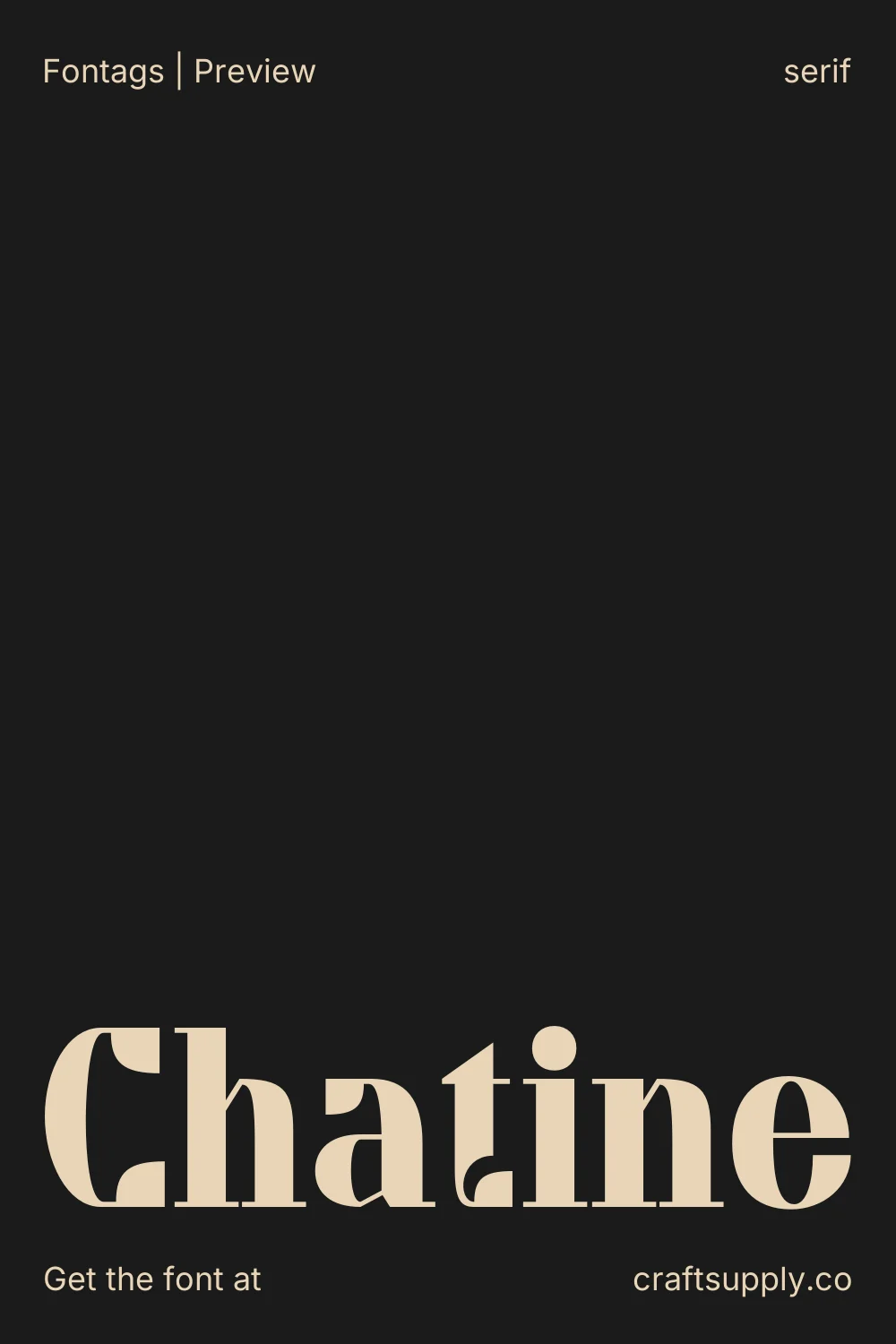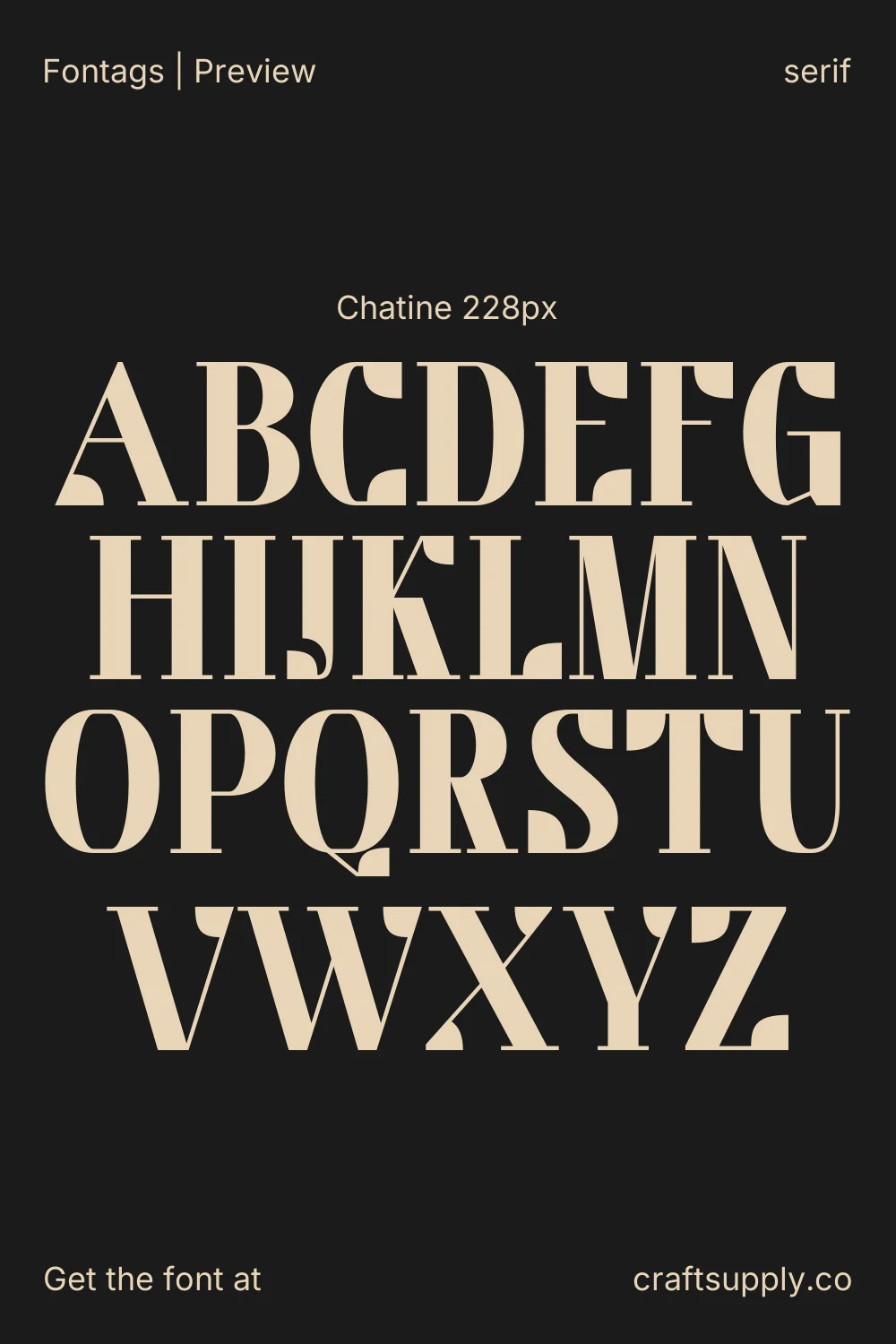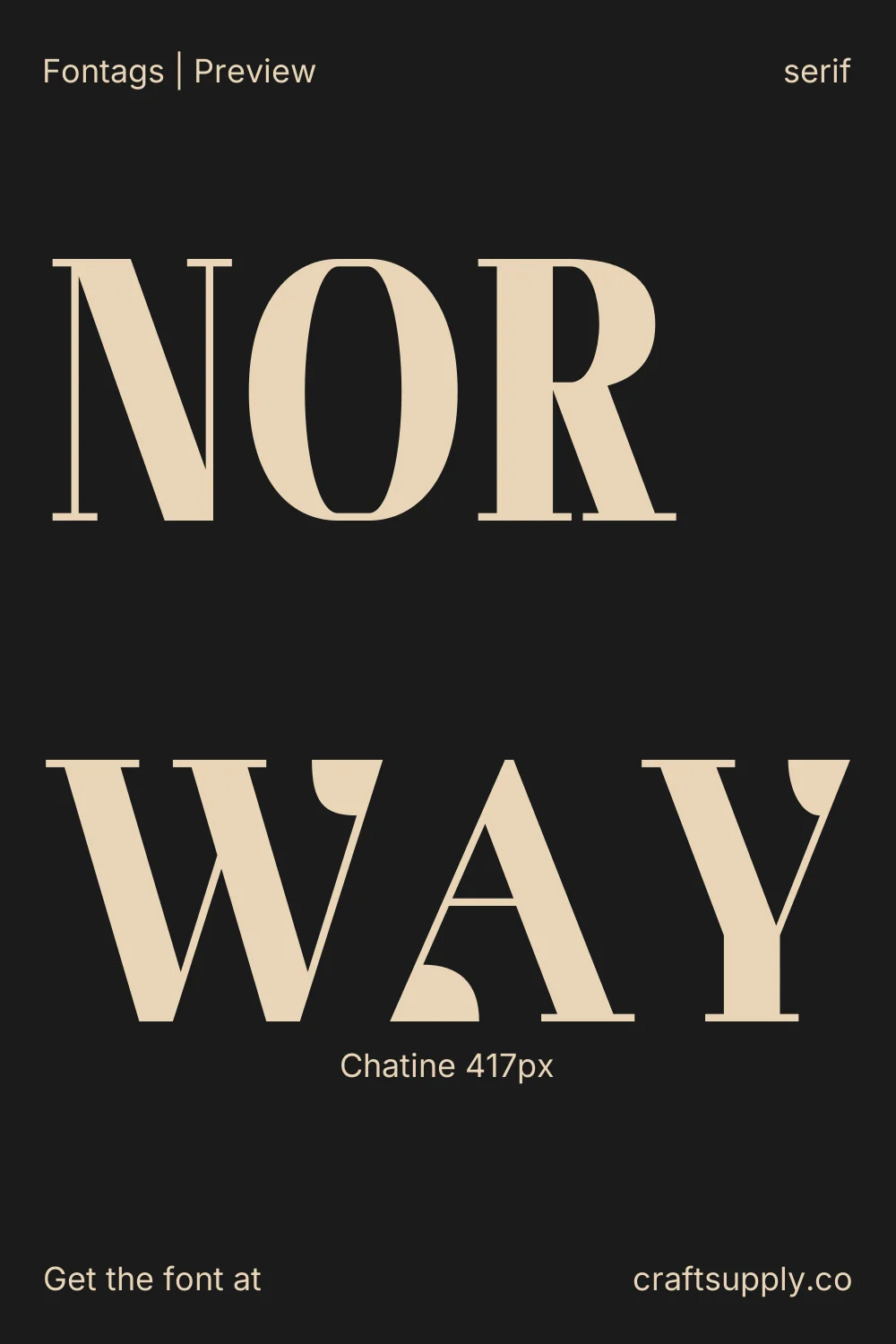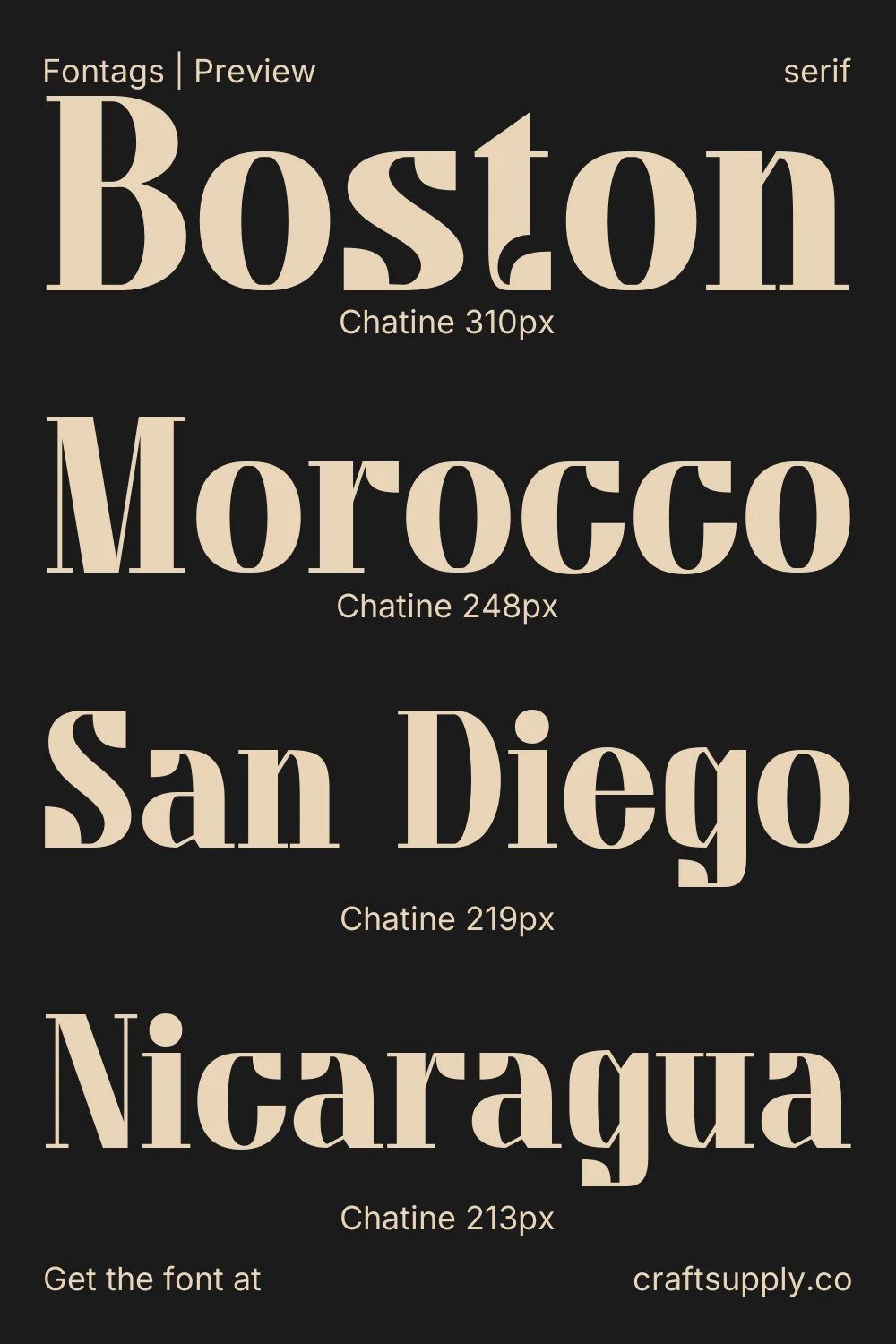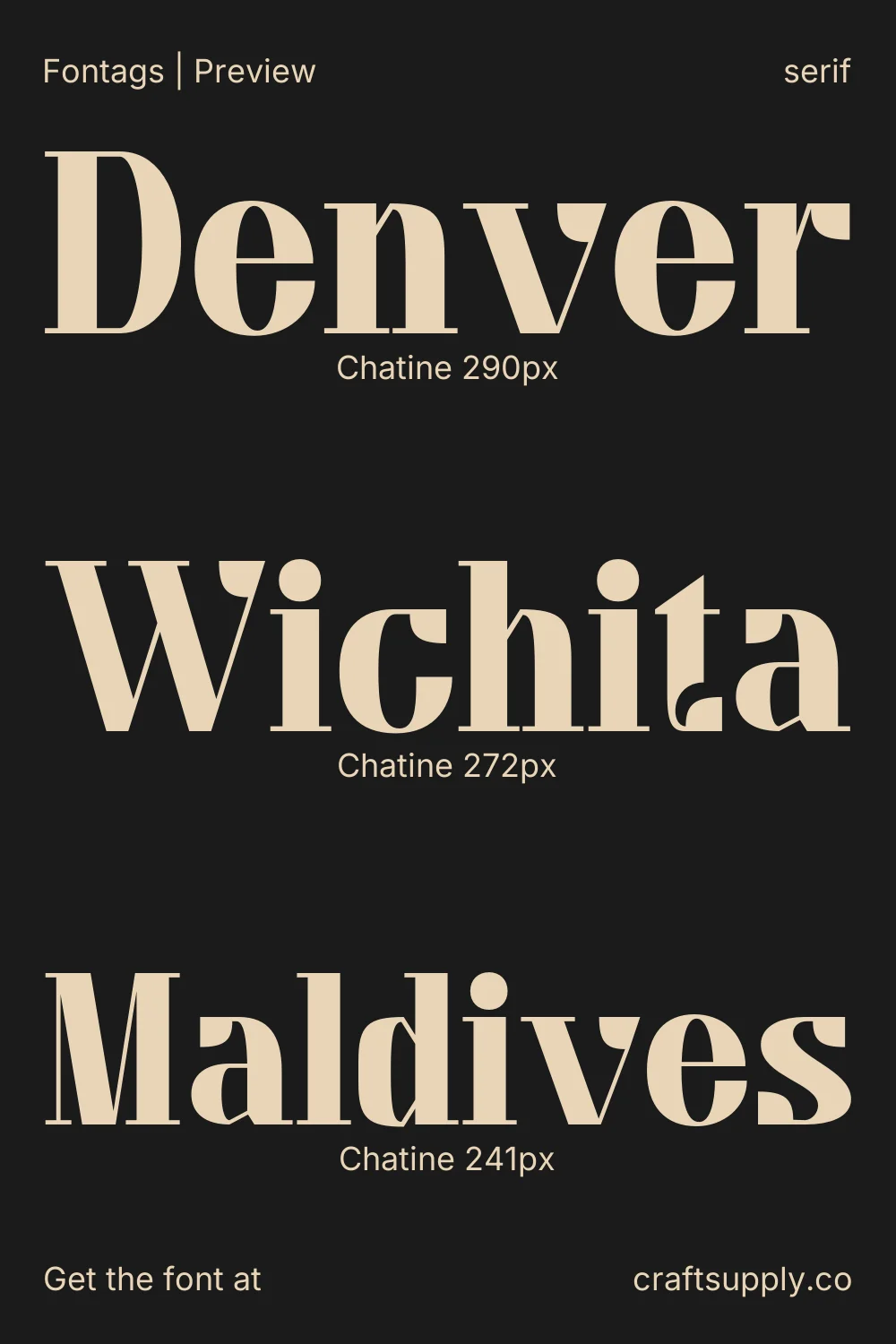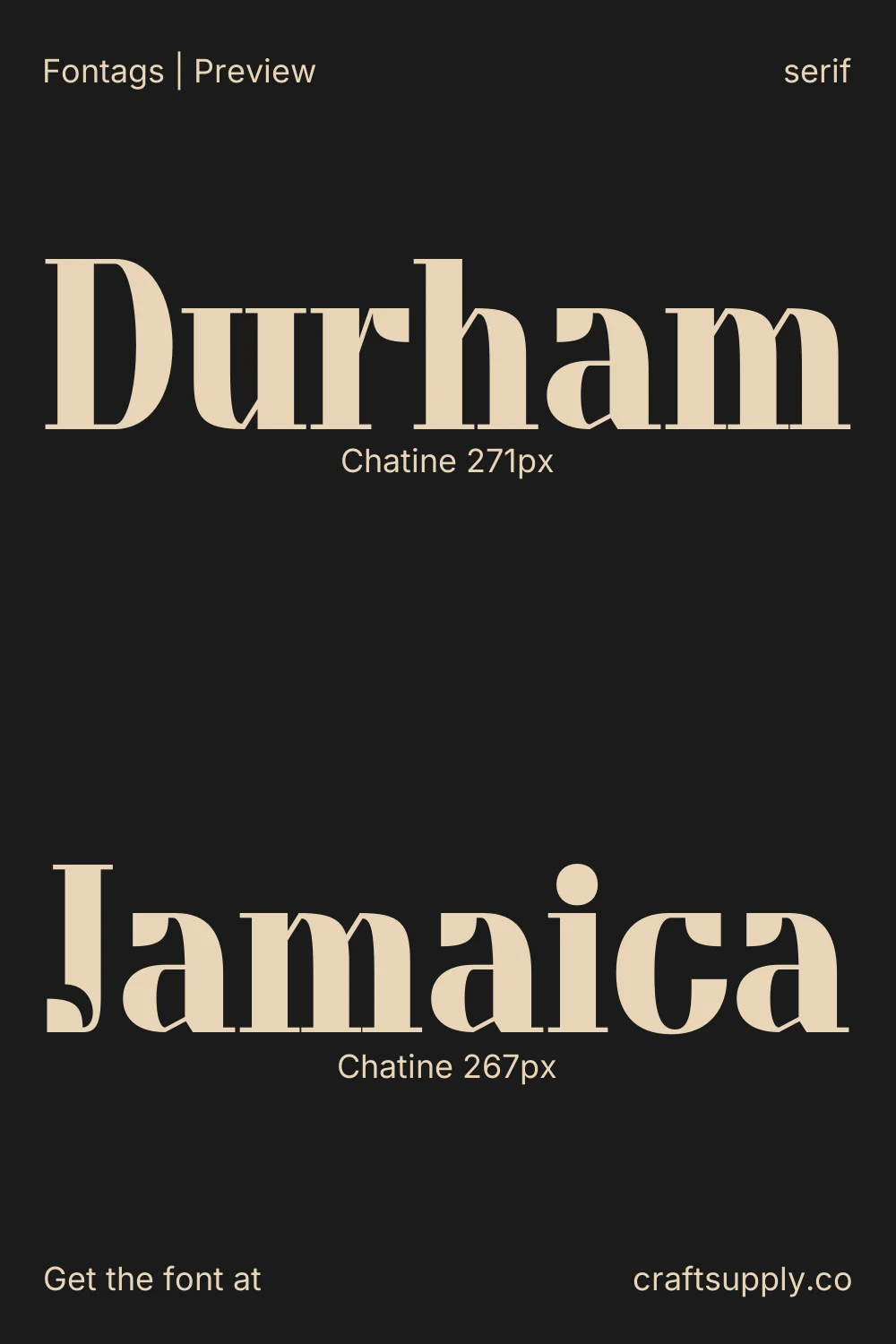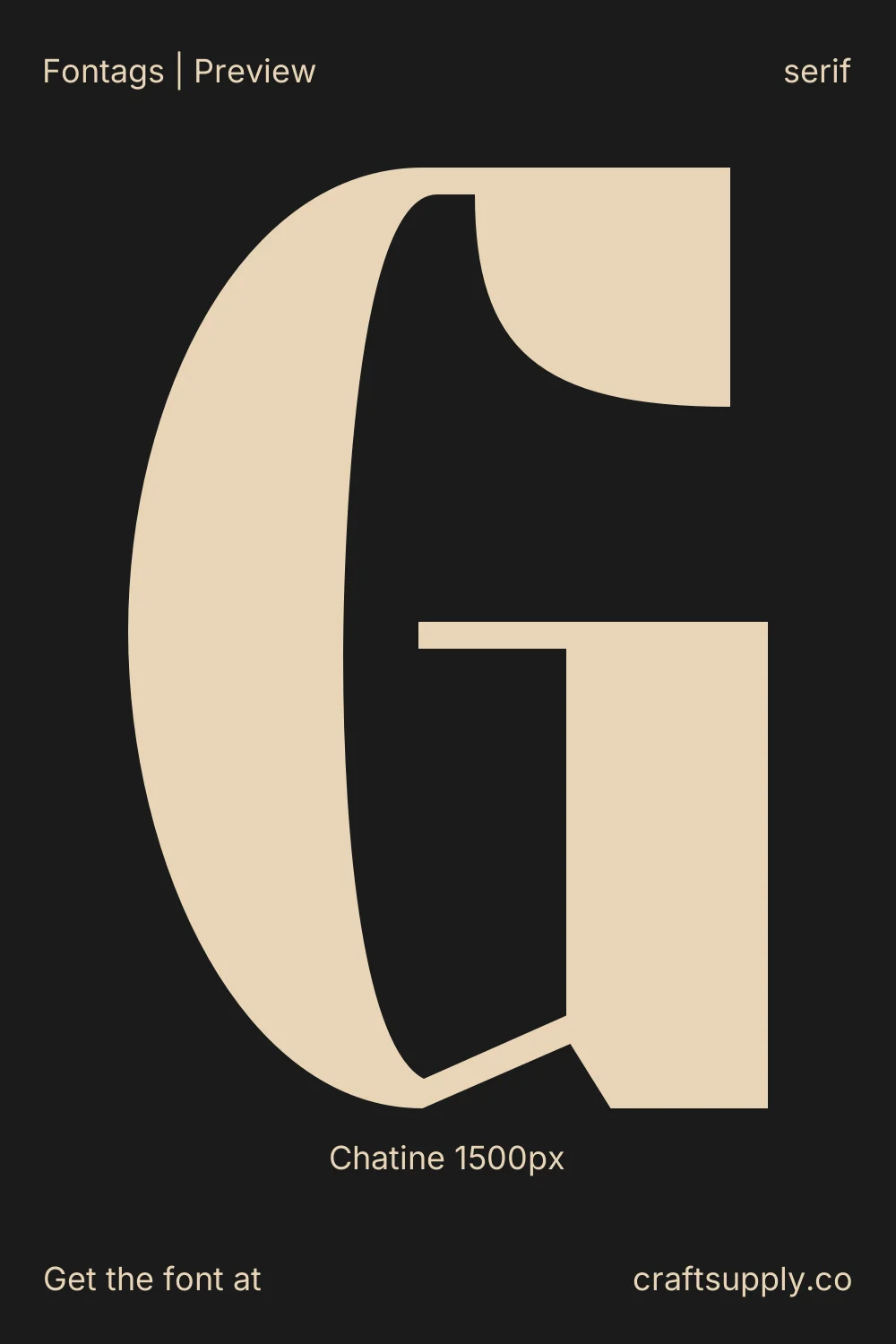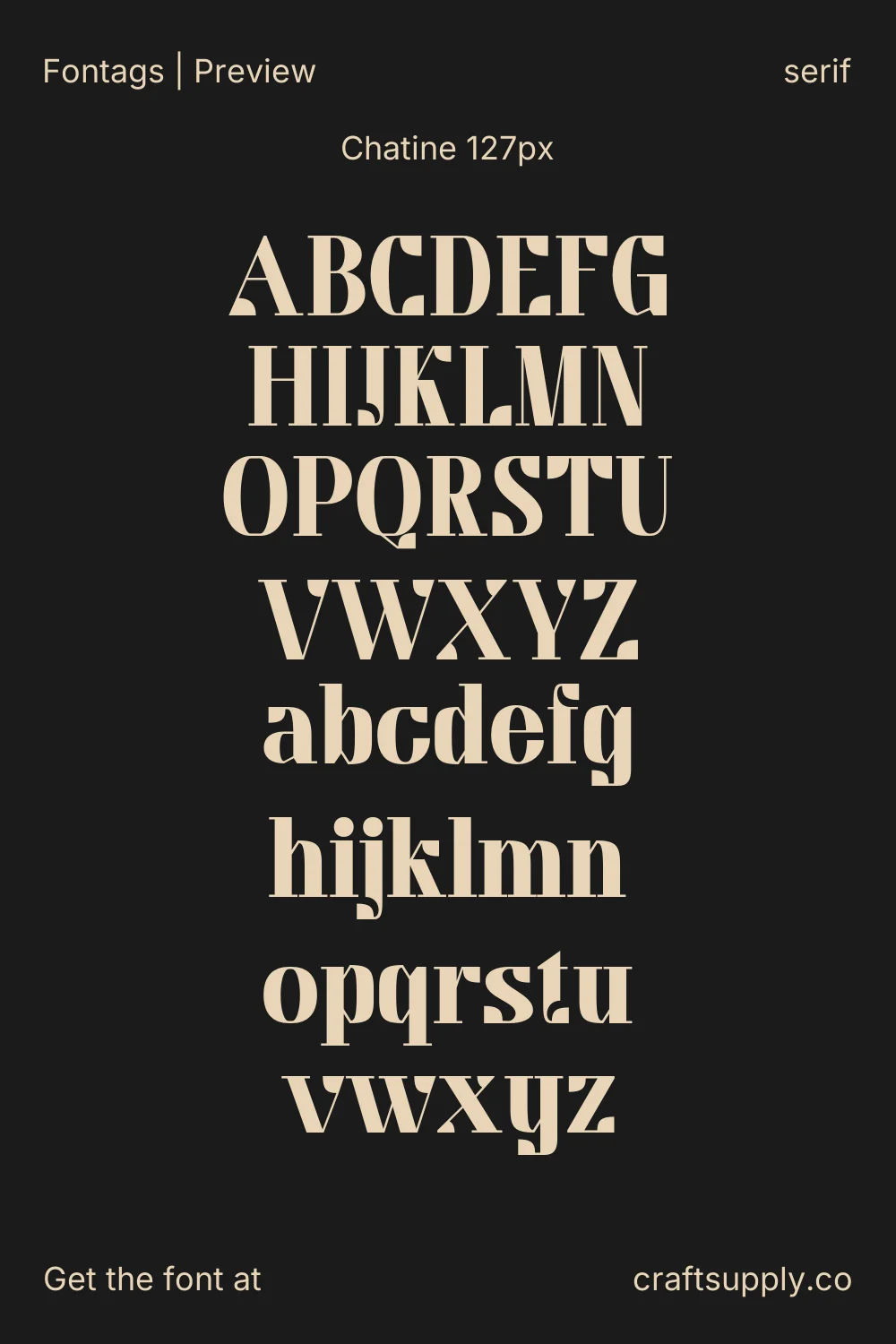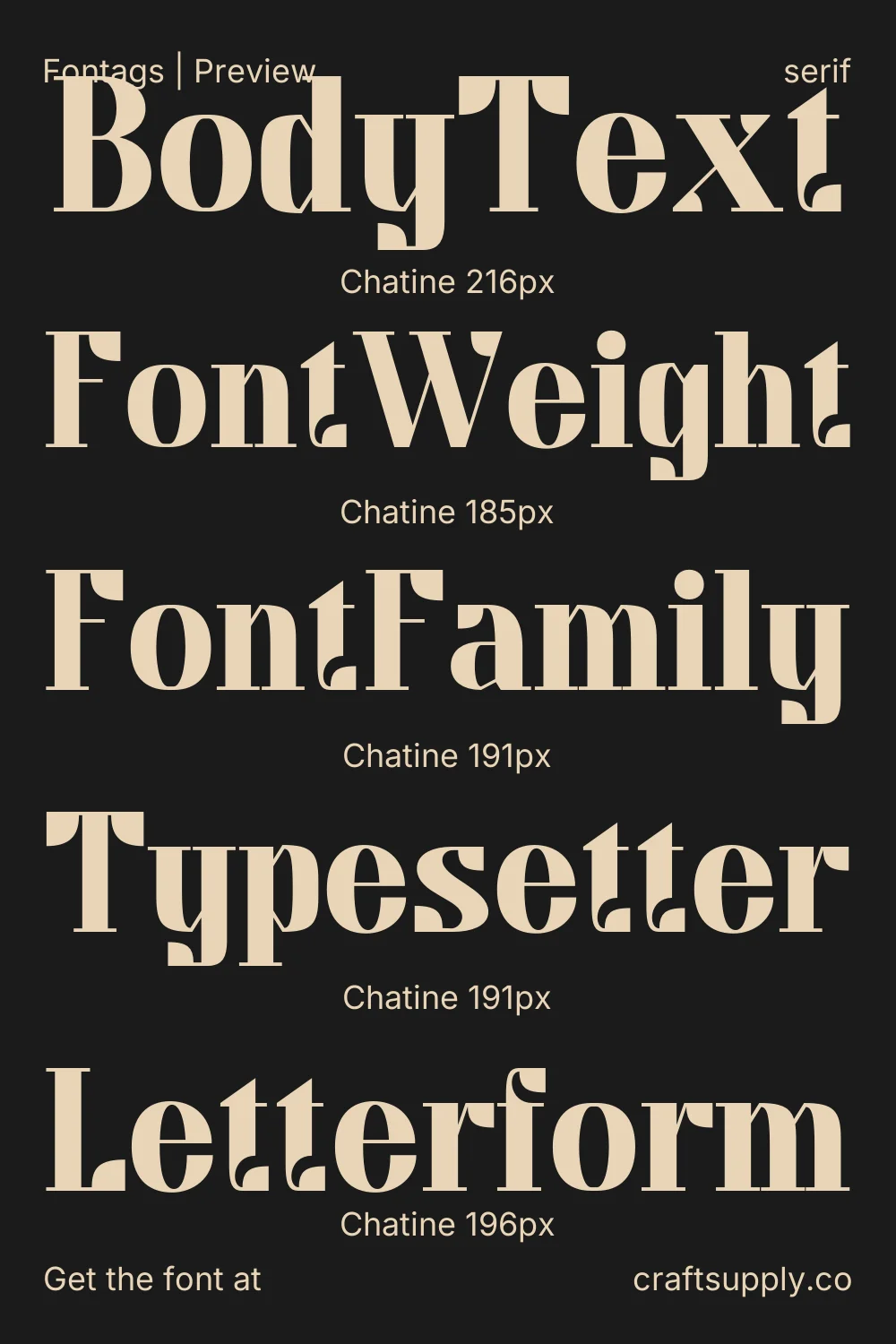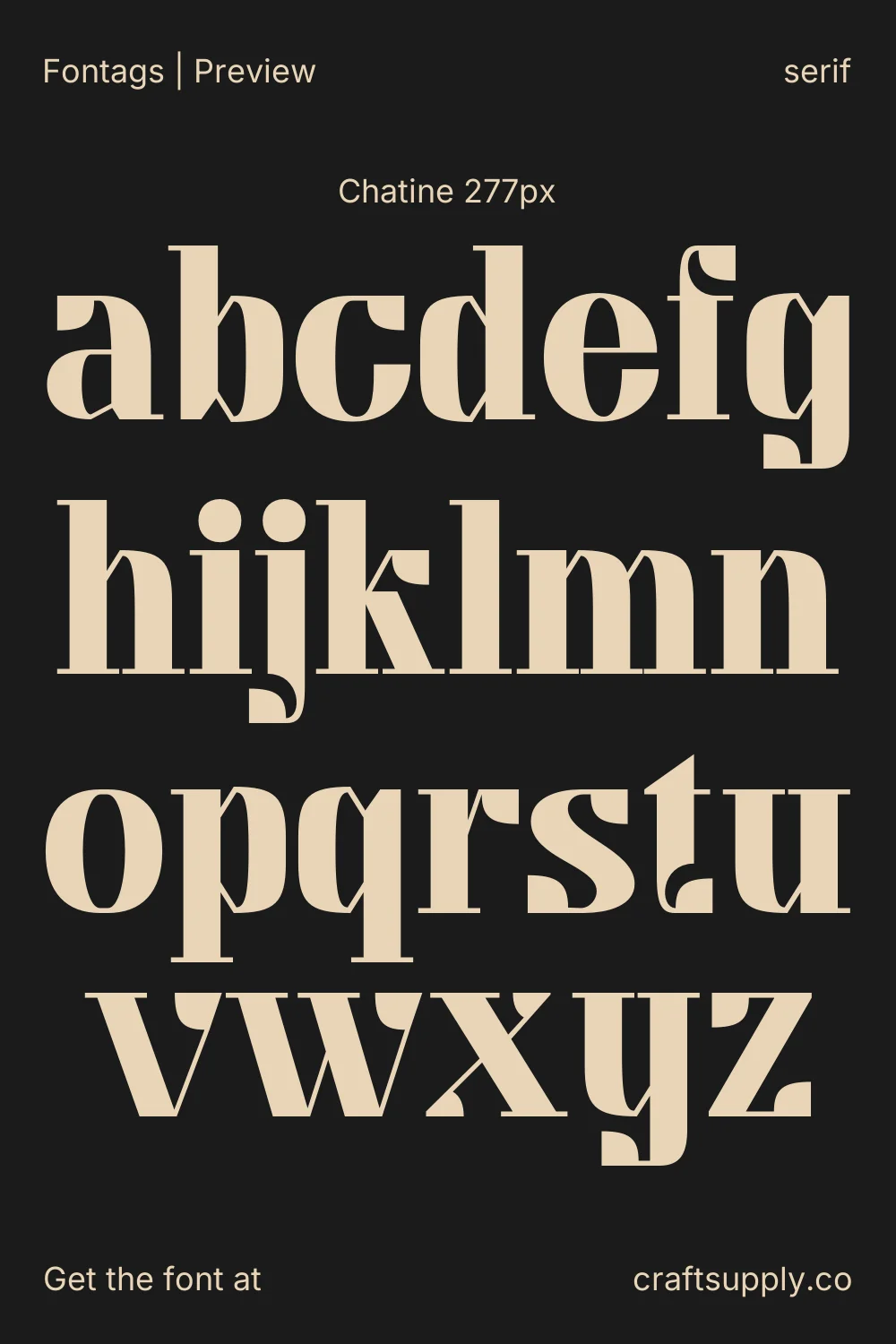
Chatine
Chatine is a display serif typeface with a retro style, reviving vintage elegance. Its graceful curves and timeless charm make it ideal for branding, packaging, editorial design, posters, and invitations. Perfect for projects seeking a classic, nostalgic flair.